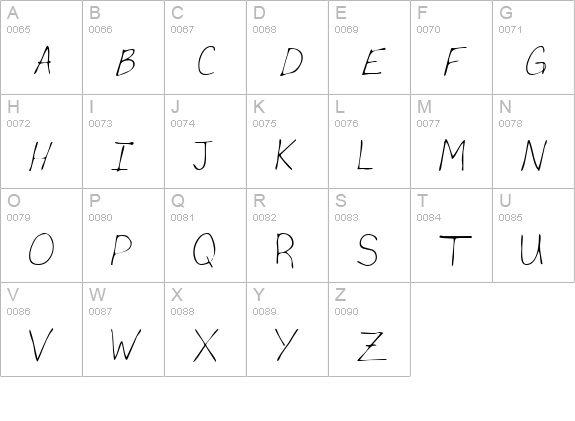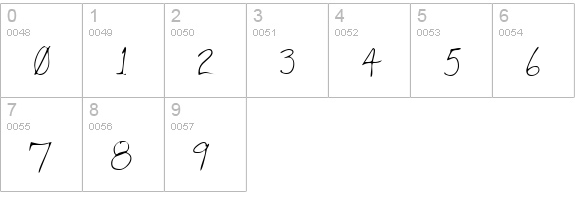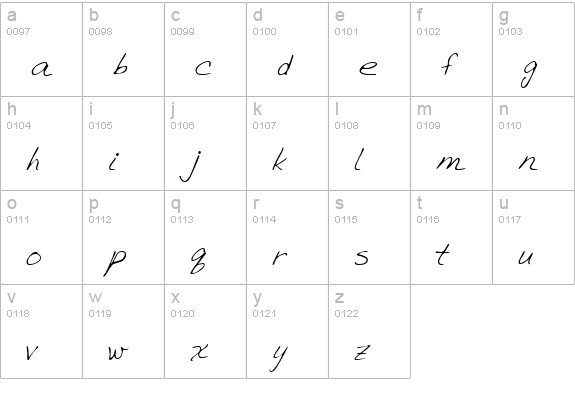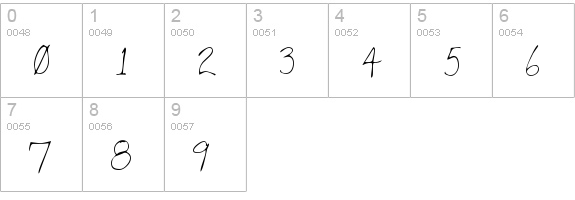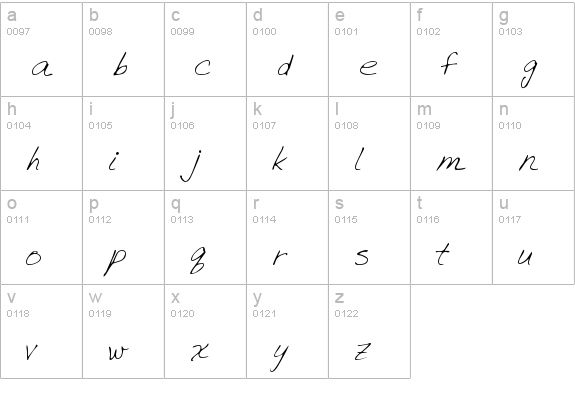
BrettsHand Regular Font Details
BrettsHand Regular is the standard, neutral variant in the BrettsHand typeface family \xE2\x80\x94 well suited to general body text, paragraphs, and standard typographic work.
BrettsHand Regular font is a charming and versatile typeface that adds a touch of elegance to any design project. This handwritten font exudes a warm and friendly vibe, making it perfect for a wide range of applications, from invitations to branding and more. The flowing lines and unique character shapes of BrettsHand Regular make it stand out from the crowd and give your text a personal touch. Whether you're designing a greeting card, creating a logo, or working on a poster, this font will bring a sense of style and sophistication to your project. Best of all, BrettsHand Regular font is available for free download at FontsMarket.com. So you can add this beautiful typeface to your collection without breaking the bank. Don't miss out on the opportunity to enhance your designs with the timeless beauty of BrettsHand Regular font. Download it today and let your creativity shine!